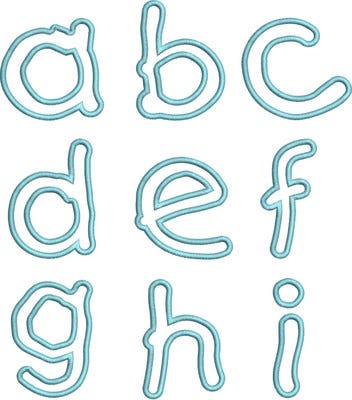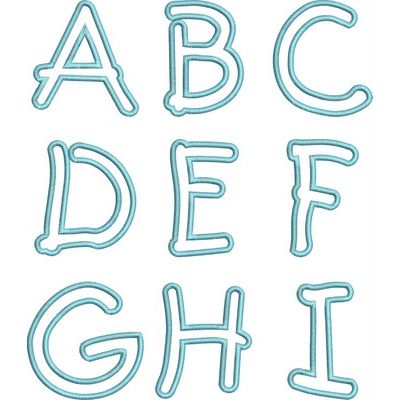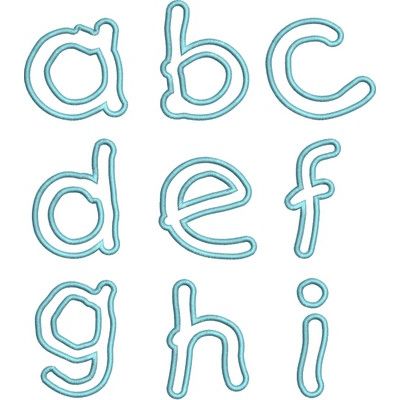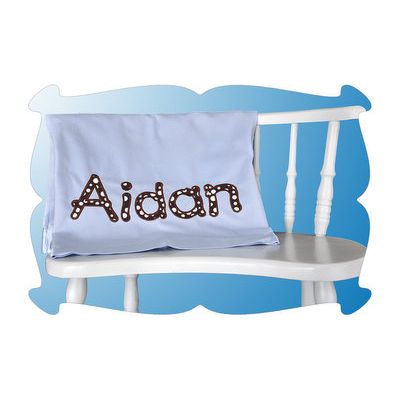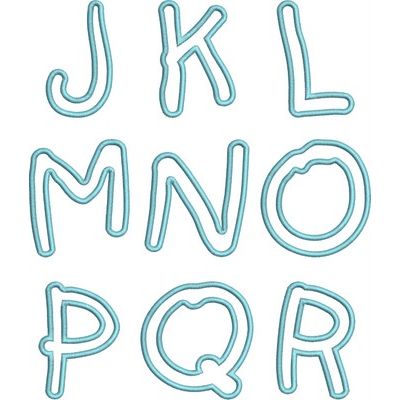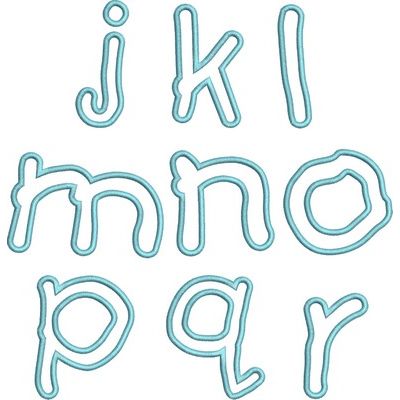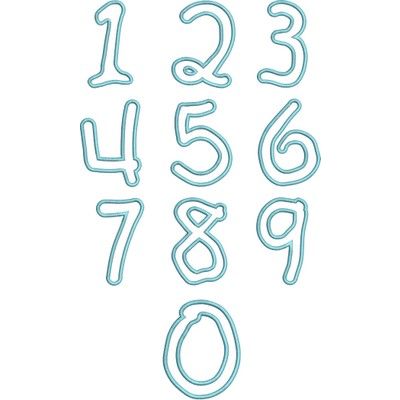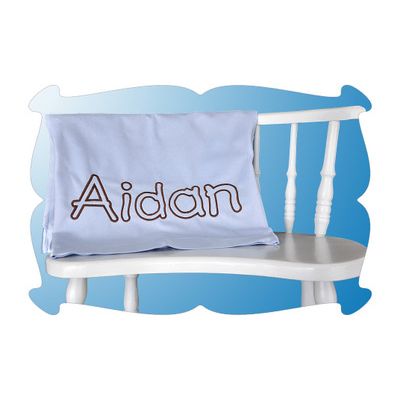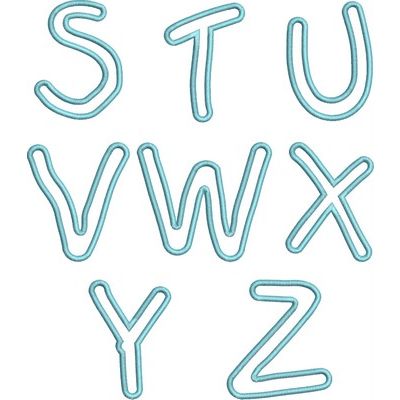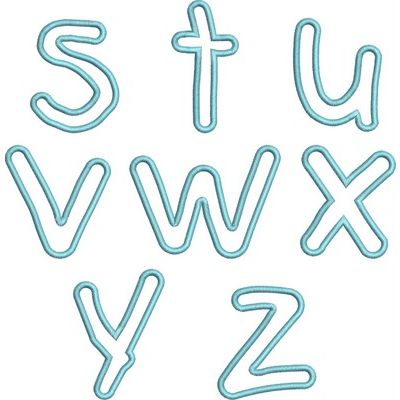
Childs Play Applique Font
3 finishing styles: satin, zig zag, satin outlines.
Upper case letters A thru Z. Lower case letters a thru z. Numbers 0-9.
...a fun applique font for boys and girls....
This is a huge applique font set!
All letters and numbers come in:
1. traditional satin applique
2. zig zag applique
3. Quick to stitch satin outlines (as shown on the blanket).